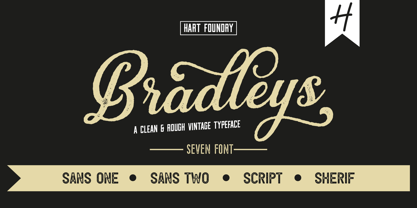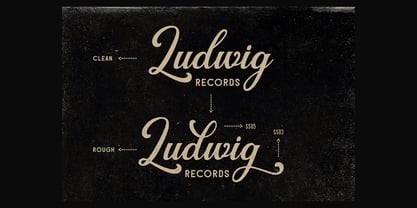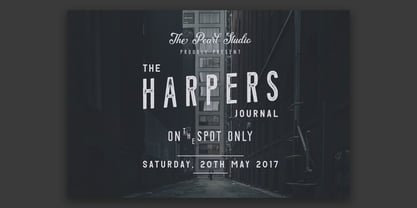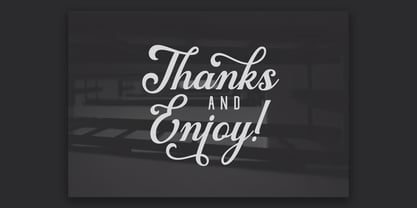
Bradleys
von Hart Foundry
Die Schriftfamilie Bradleys wurde von Muhammad Ardiansyah entworfen und von Hart Foundry veröffentlicht. Bradleys enthält 7 Stile und Familienpaketoptionen.
Bradleys Inspired by the vintage script, but made a little more modern. In combination with two types of san serif regular and condensed you can explore the design you need for your typography project. This font package is perfect for magazines, titles, invitations, movies, product designs, brands, and other design projects.
• Bradleys Script Clean & Rough • This is the main font, consists of 402 glyphs, alternatives from ss01 to ss09, punctuation and multi language support. You can play with an alternate character on this font, resulting in nonstandard characters.
• Bradleys Sans One Clean & Rough • This is the second main font, this is the condensed font. This font can be used as the primary word to replace the main font, such as the example on the display. This font is available with several character alternatives such as letters a, c, e, f, h, j, r, s, t, and z
• Bradleys Sans Two Clean & Rough • This is a regular font functioning as the main and second font support. They can unite and become the perfect combination
• Bradleys Serif & Rough • NEW!